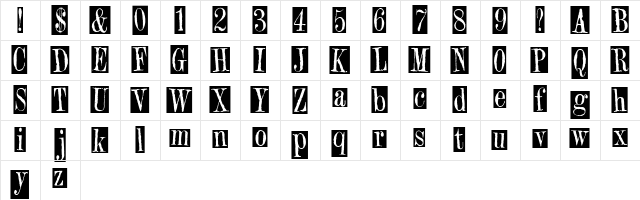
2Peas Gift Regular
Design Context for 2Peas Gift Typeface
2Peas Gift is a composed and adaptable typeface that performs quietly and consistently across a wide range of design contexts.